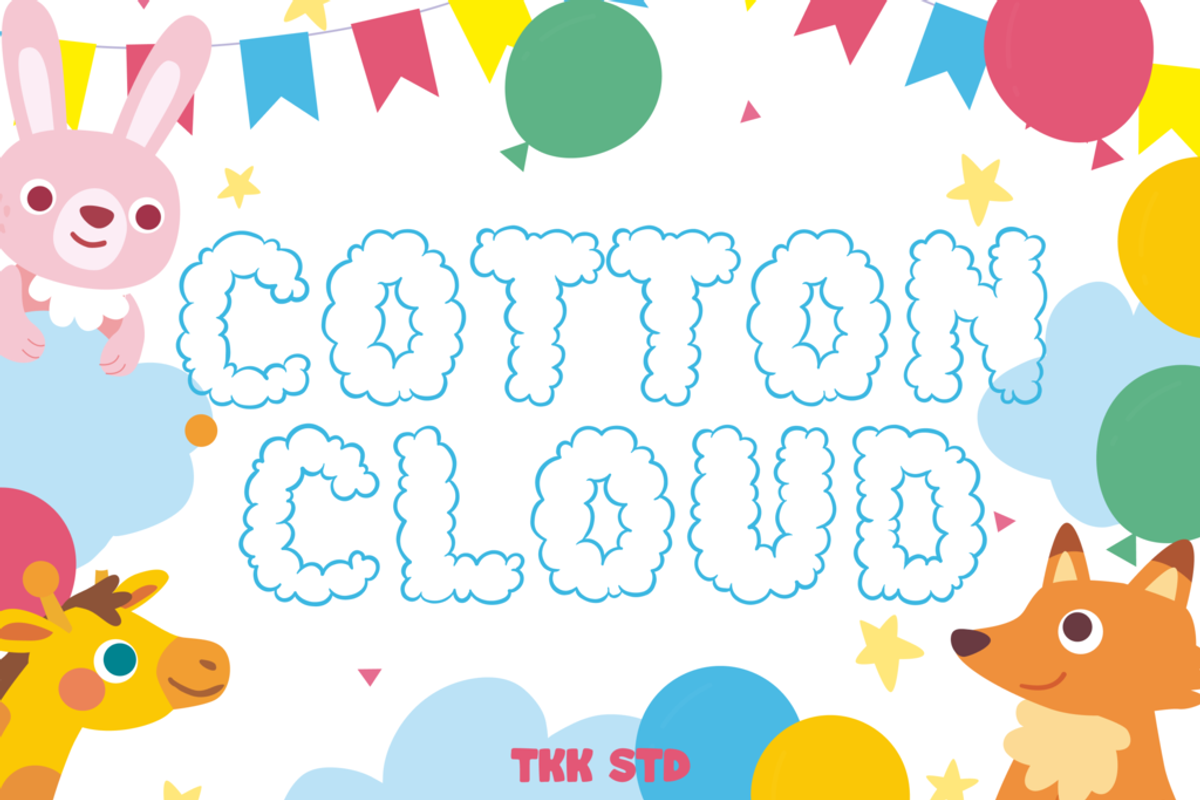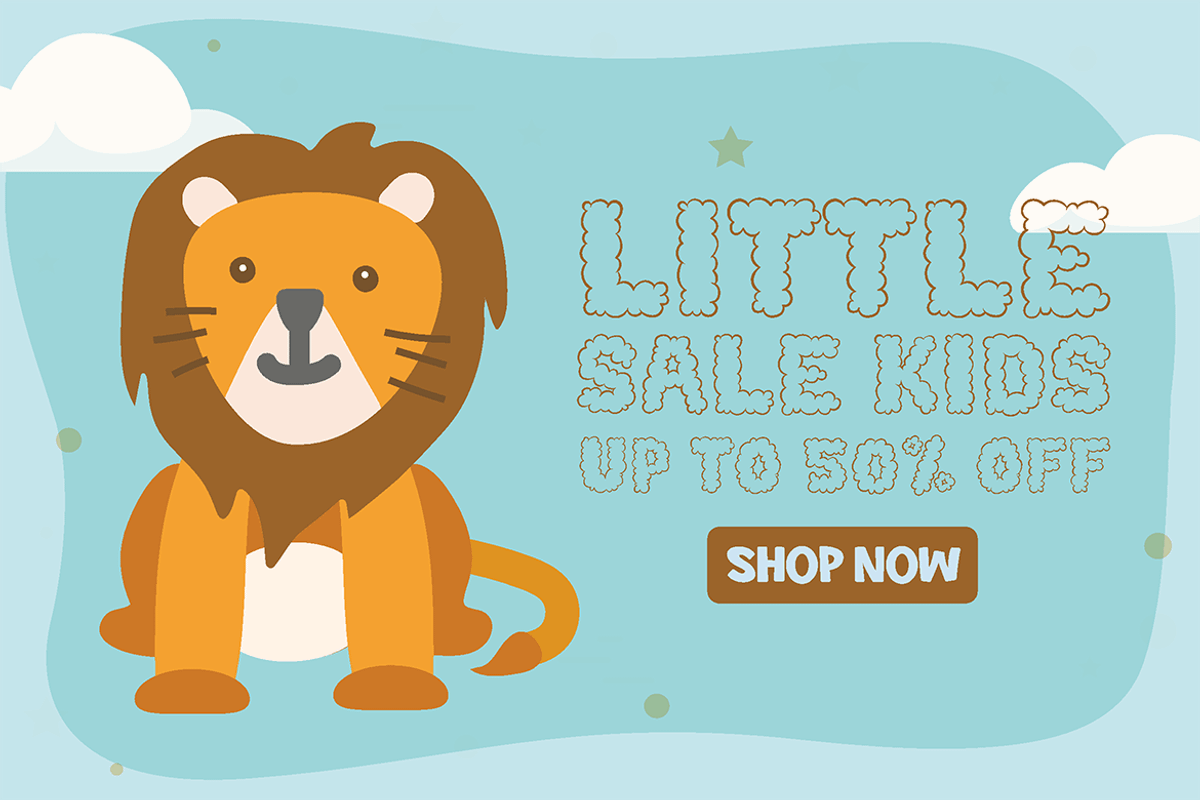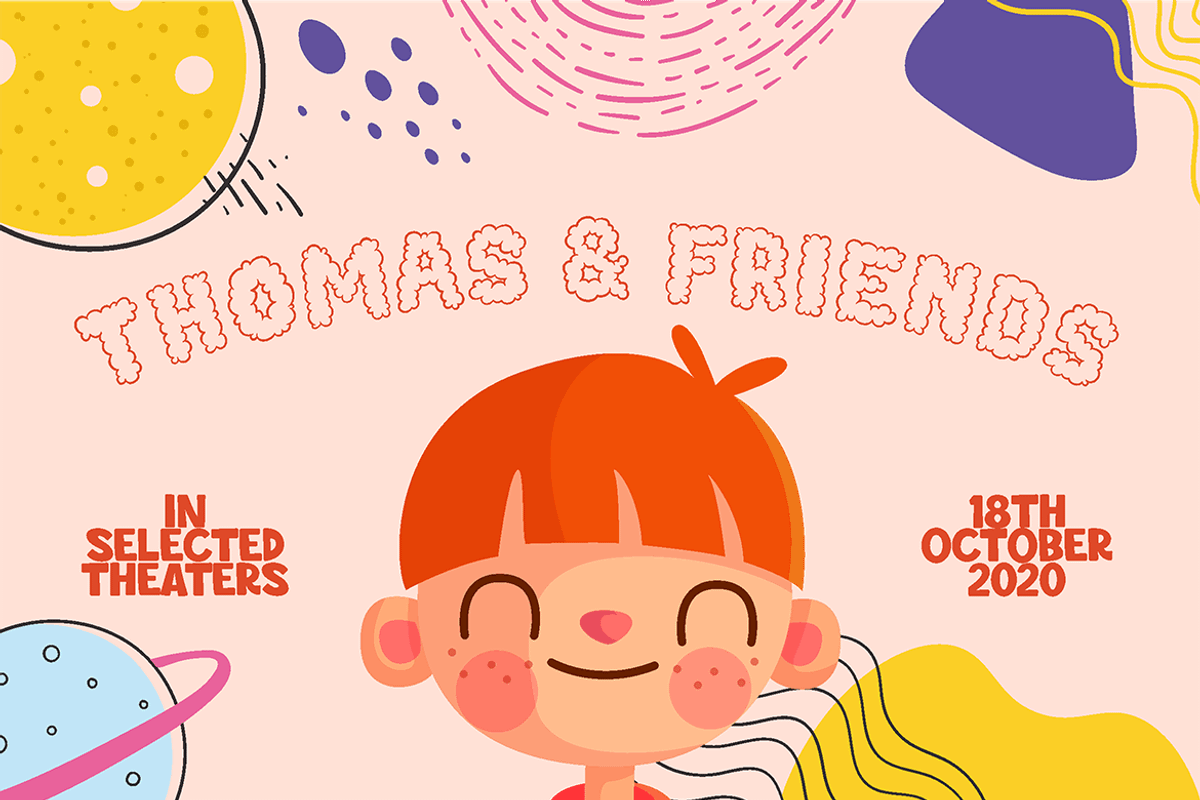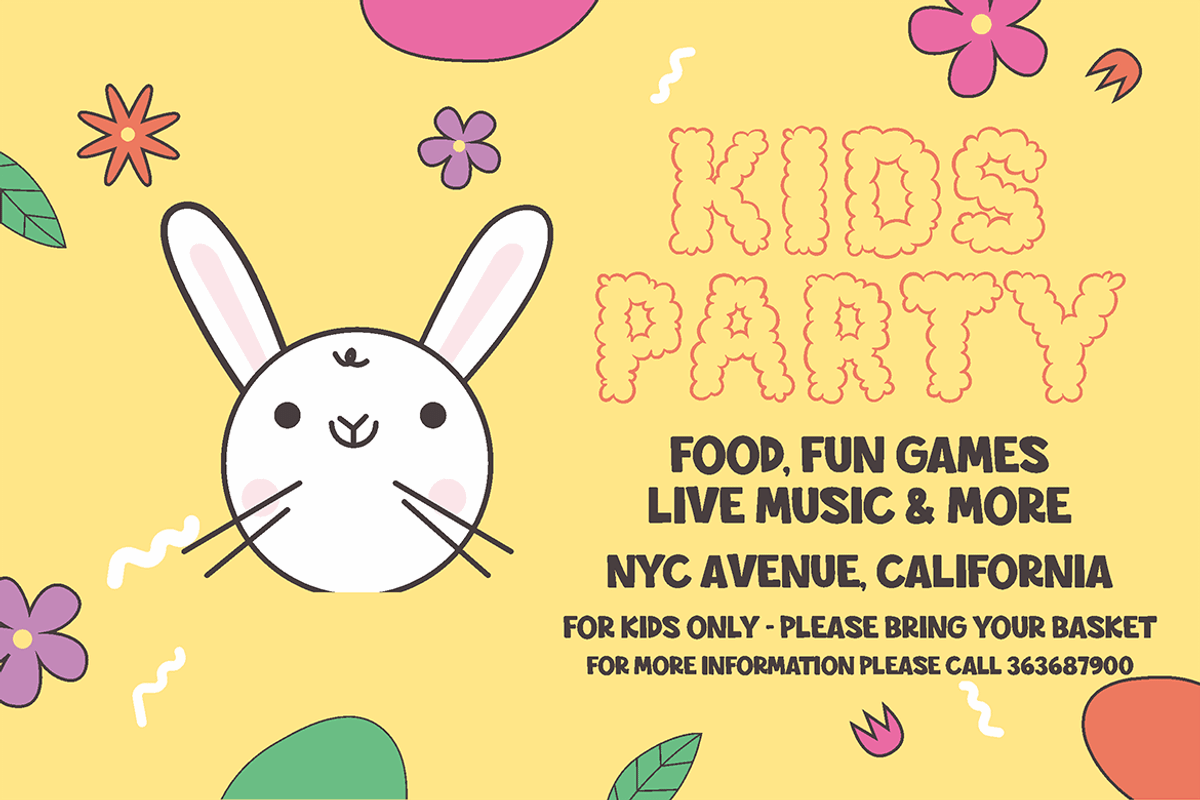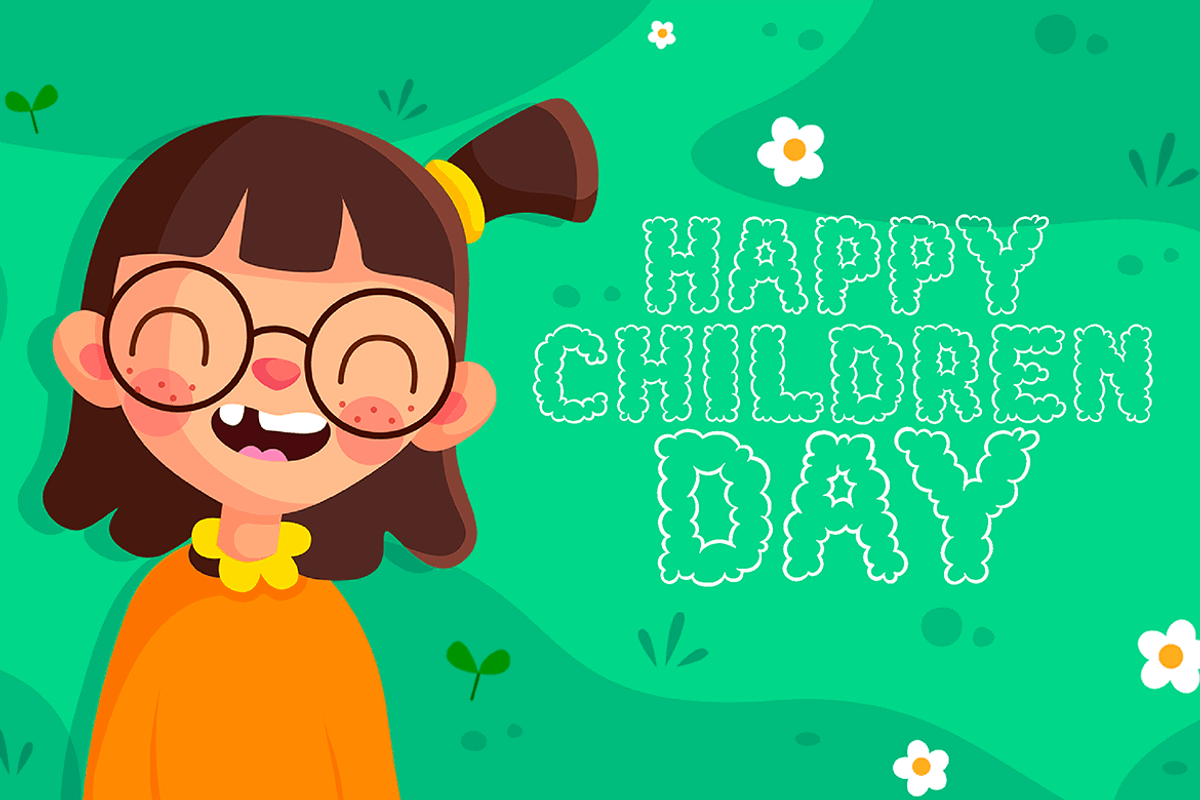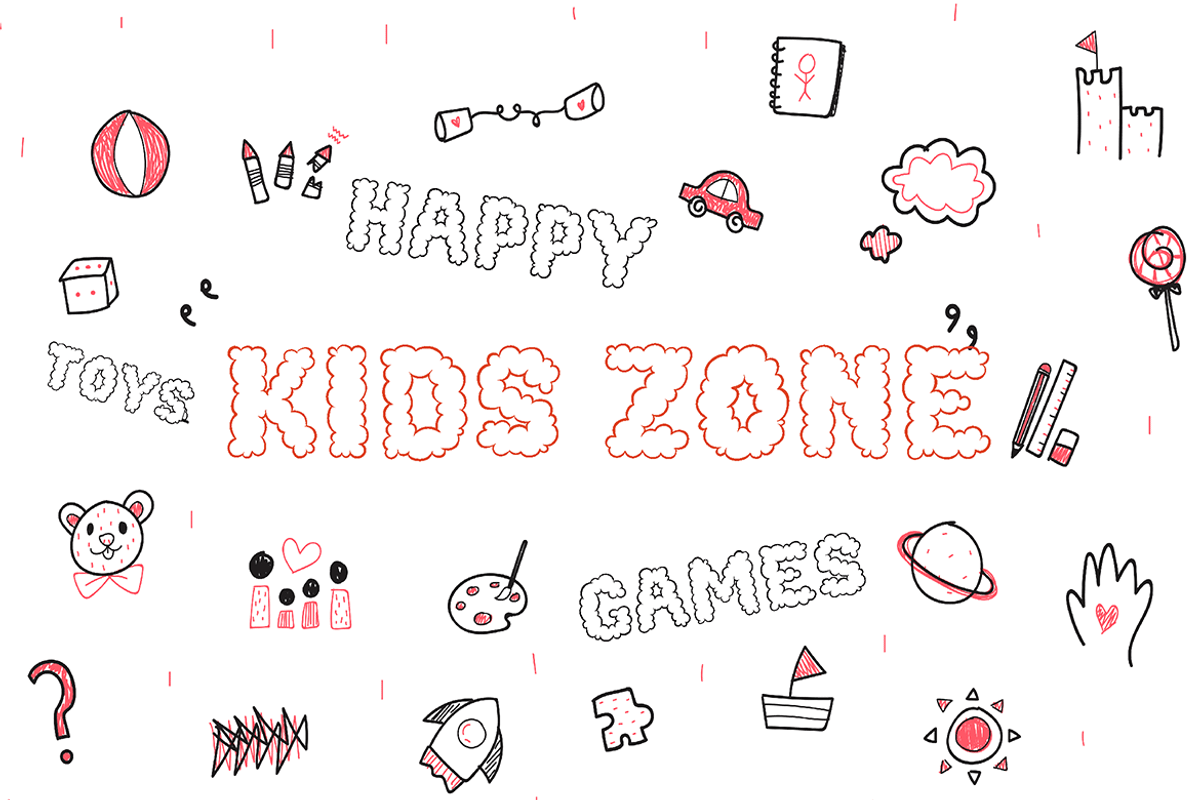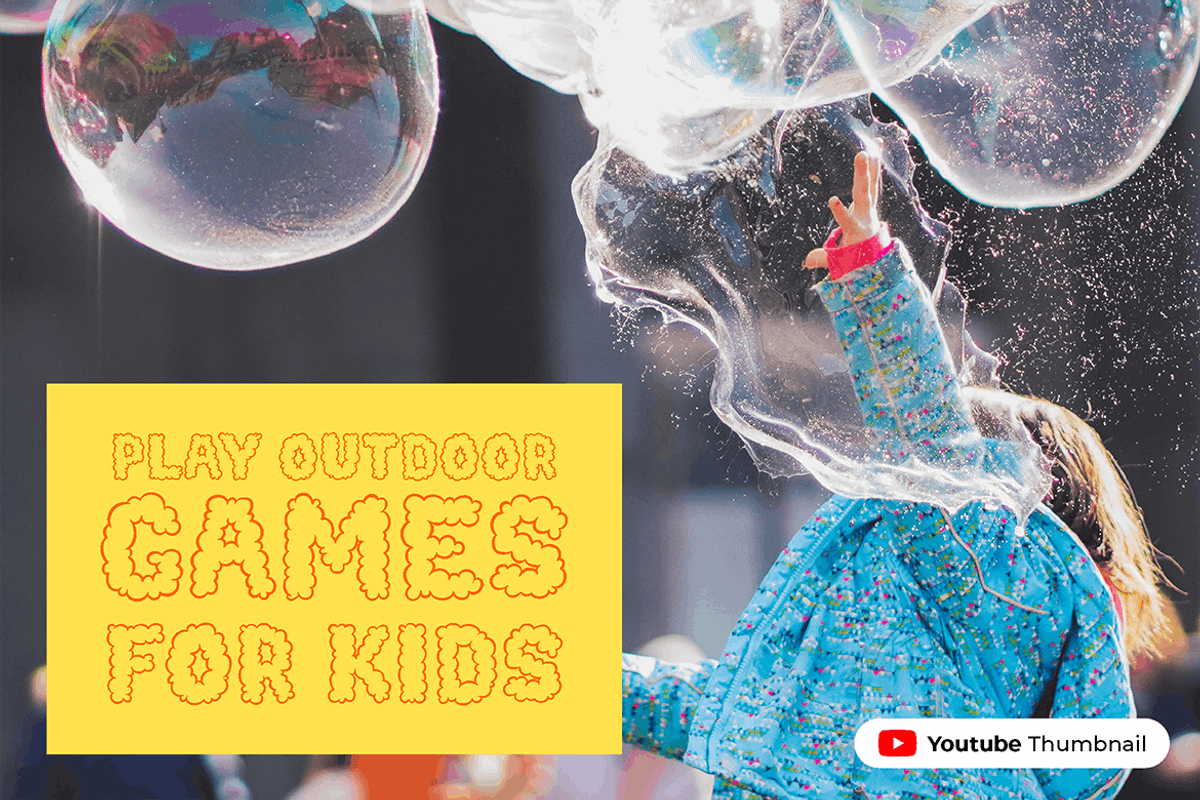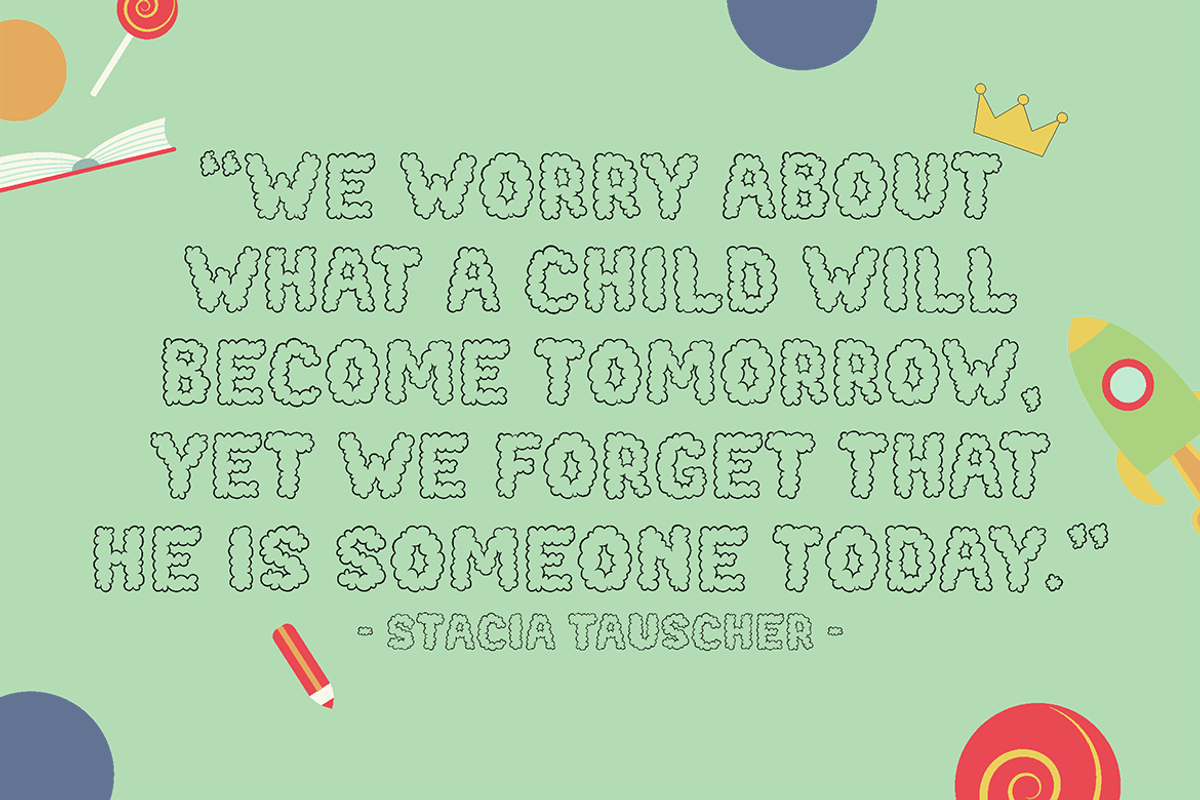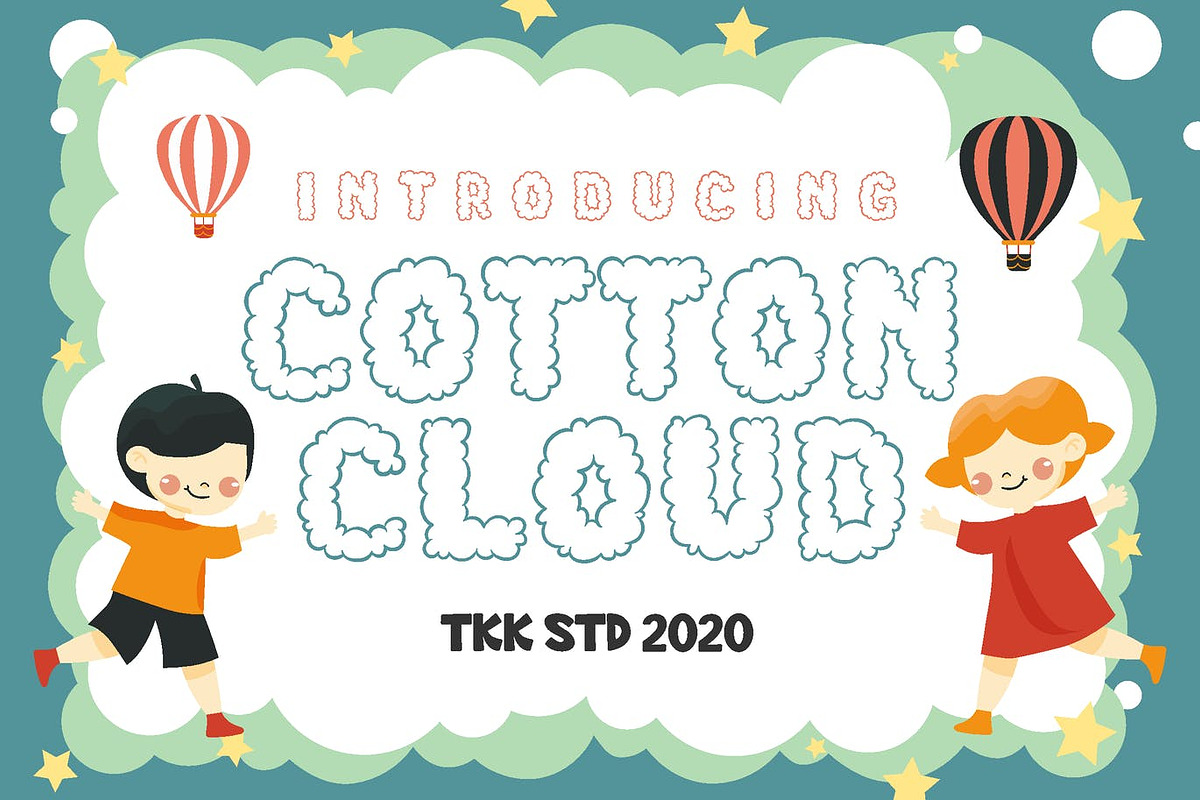
Cotton Cloud - Cute Font
Cotton Cloud cute font, Imagine flying through the cloud, feel the softness of the cottony and fluffy cloud in the sky. Suit perfectly for Adventure online games, poster, movie title, magazine, youtube covers, youtube thumbnails, social media page covers and so on...